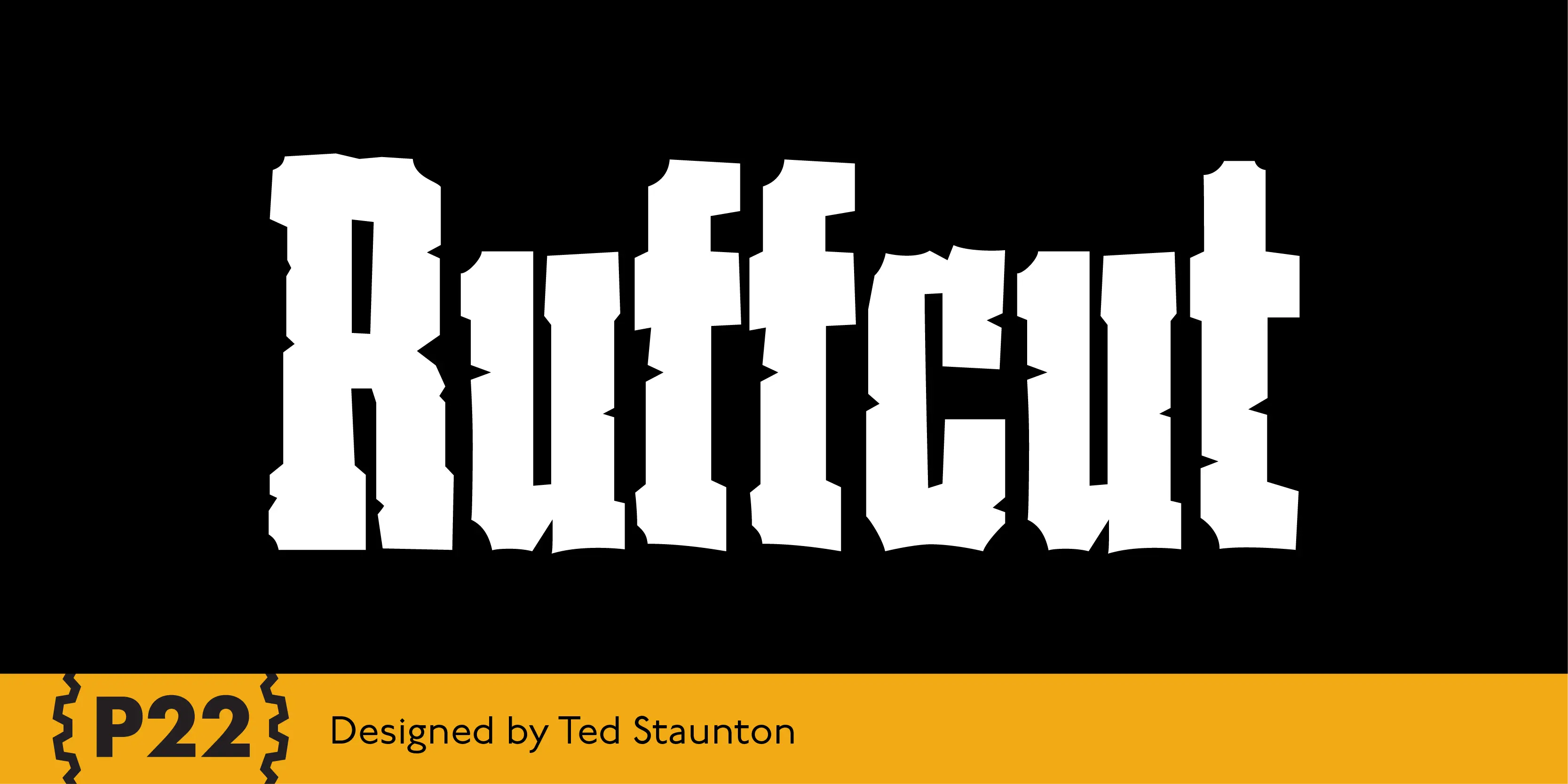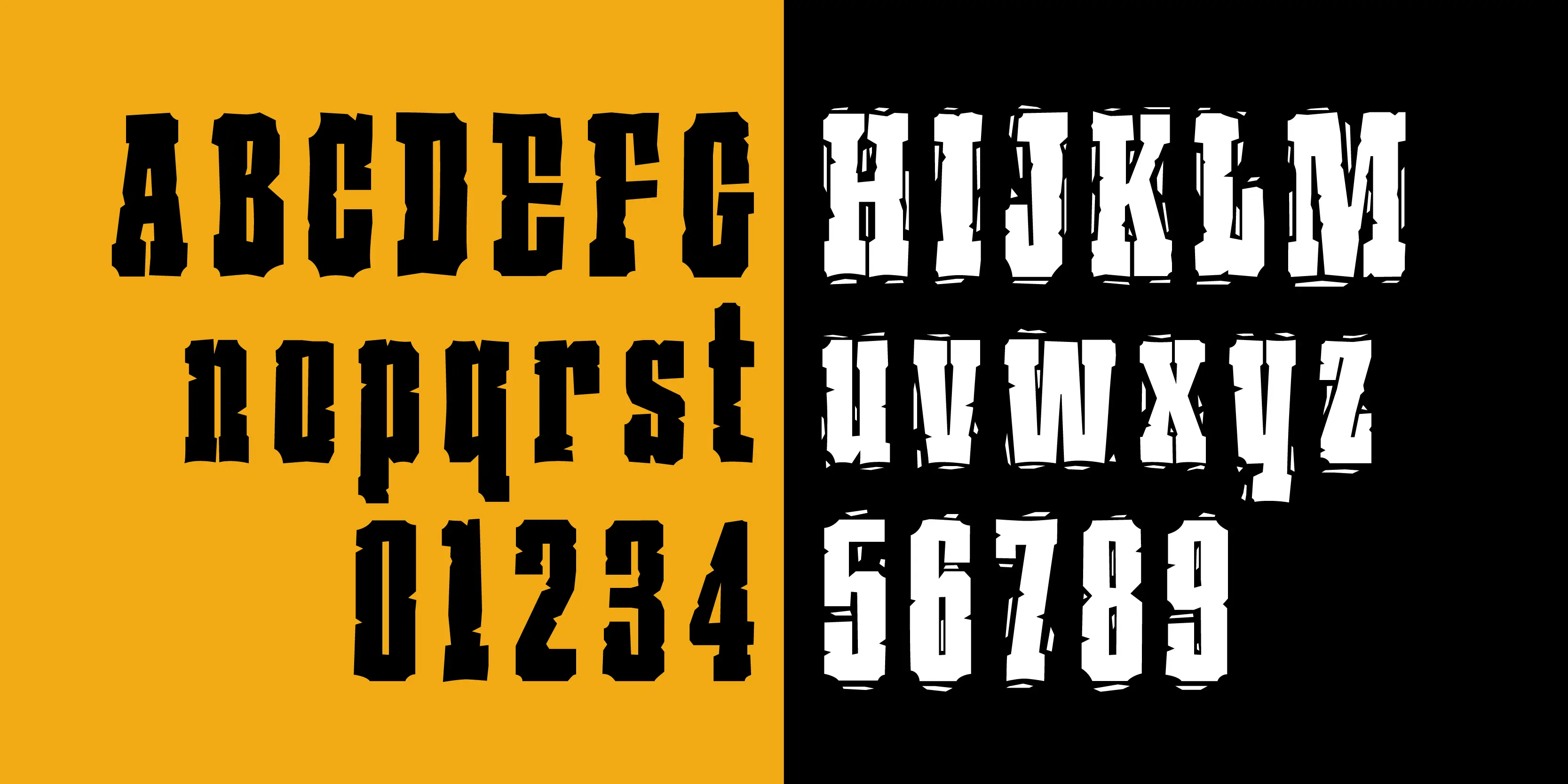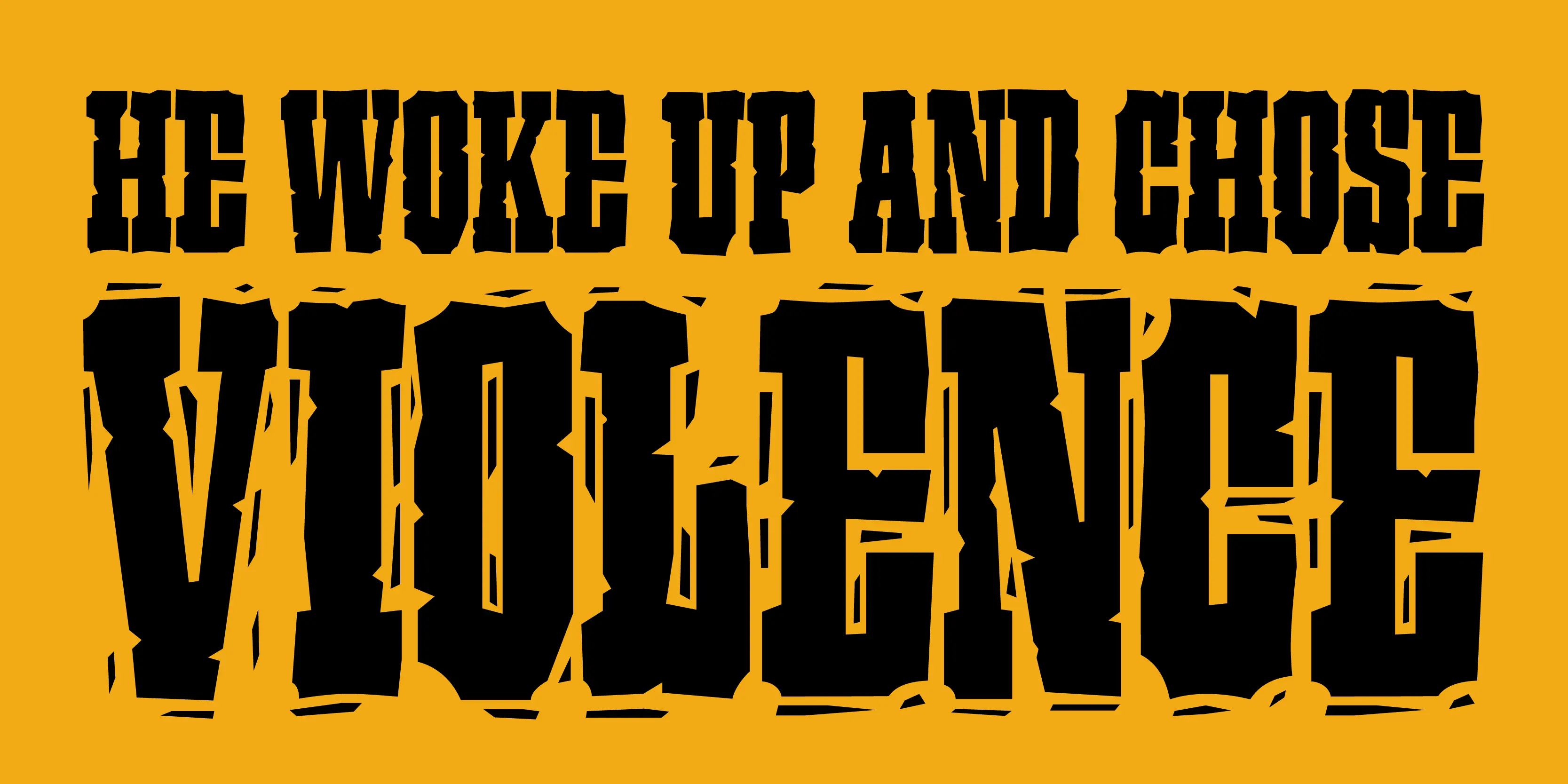
Ruffcut Font Family
• Ruffcut Plain
• Ruffcut Woody
Ruffcut
Ruffcut is an antique wood type style that evokes the look and feel of type used in the design of poster-sized advertisements for circus, fairground and like events in the late 19th century. It is inspired by the memories of printing letterpress posters on an old cast-iron flatbed press where the oversized posters were usually composed directly on the bed of the press using mostly wood type as large as two feet high. Ruffcut is optimal at large sizes for a wide array of decorative issues.